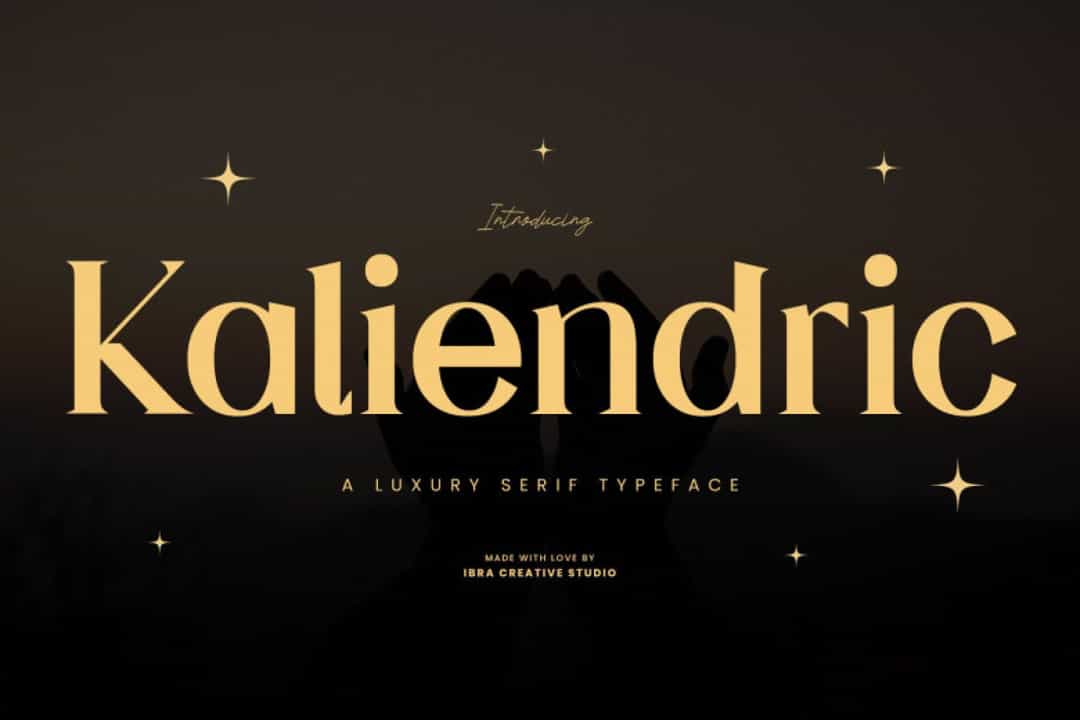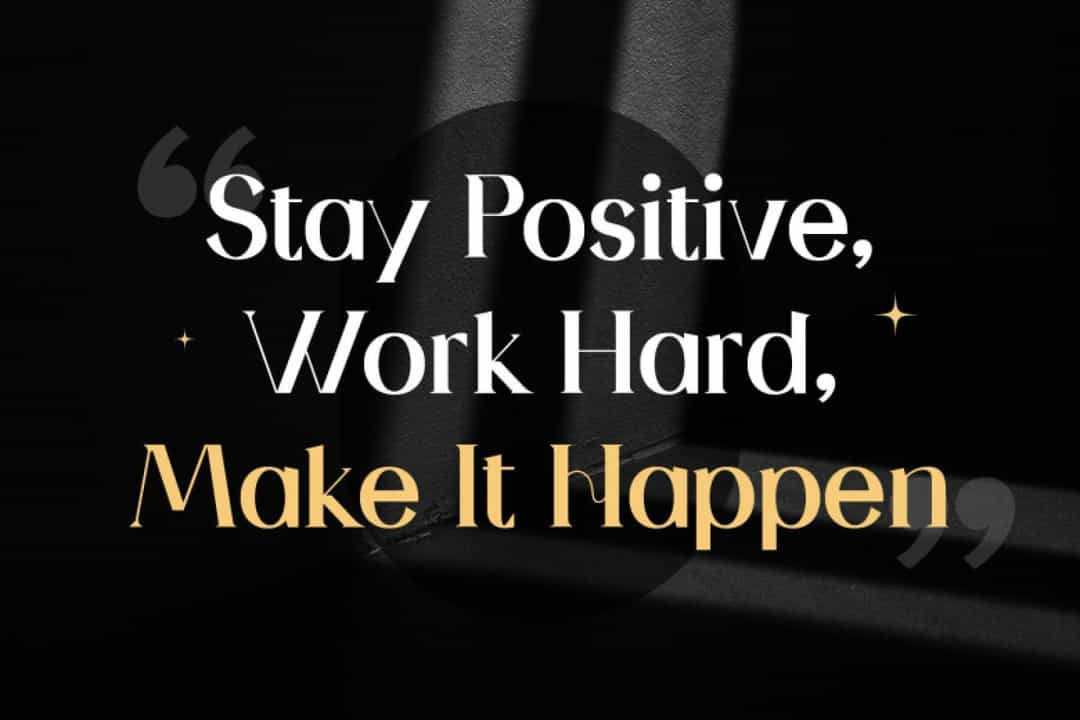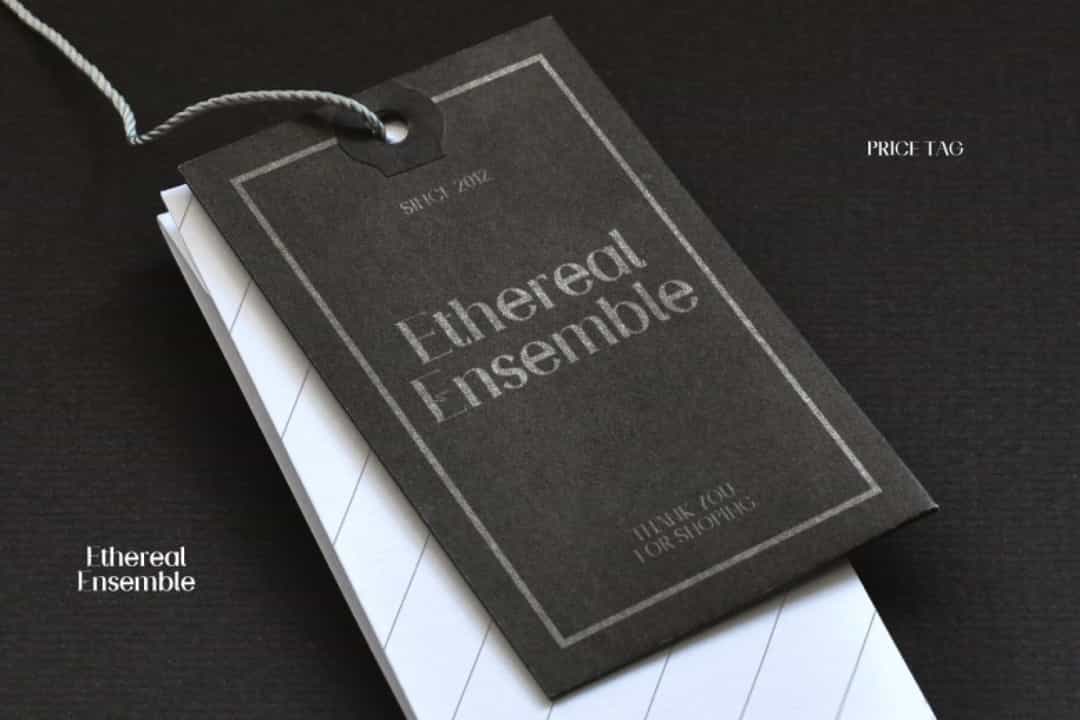
Kaliendric is a luxurious serif typeface that exudes sophistication in the field of typography. With carefully-crafted serifs and elegant letterforms that combine traditional with modern elements seamlessly, creating an aesthetic harmony that is captivating for the keen eye.